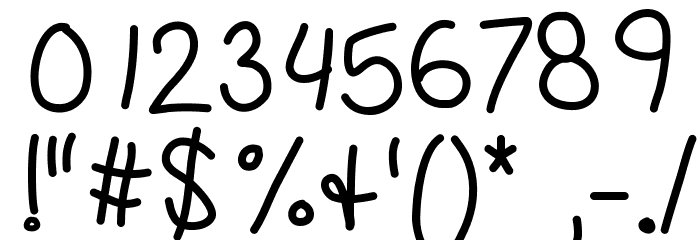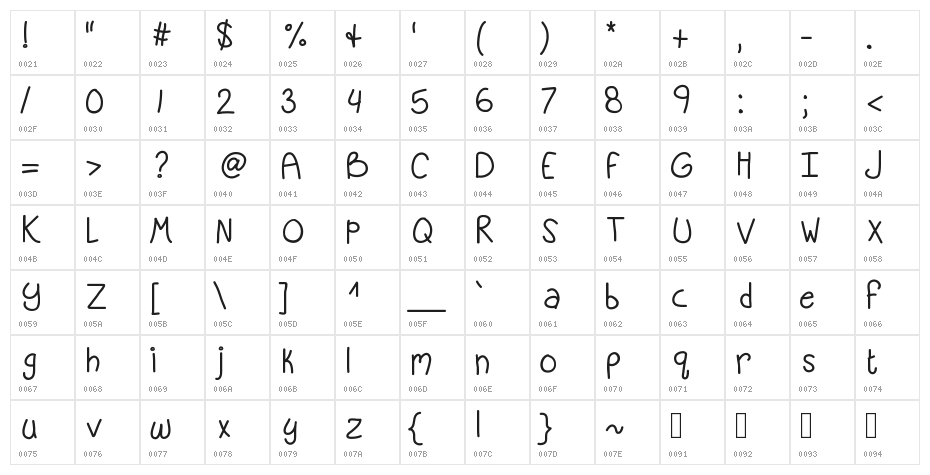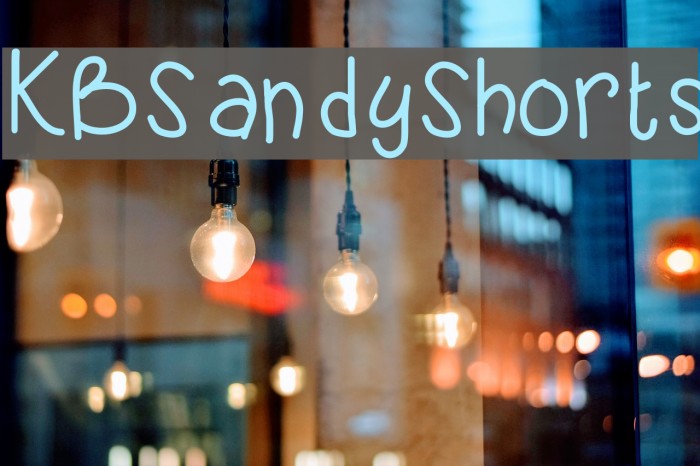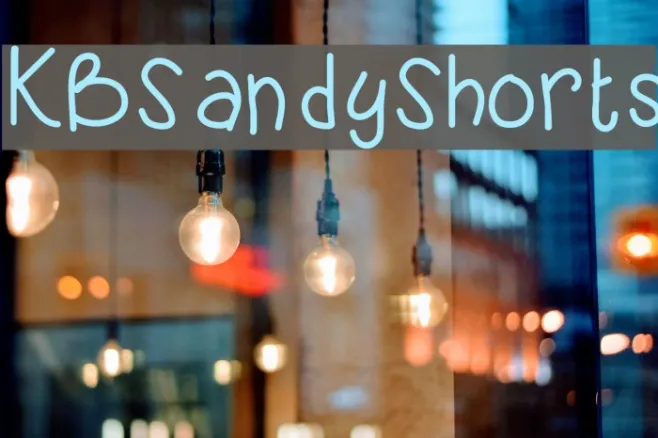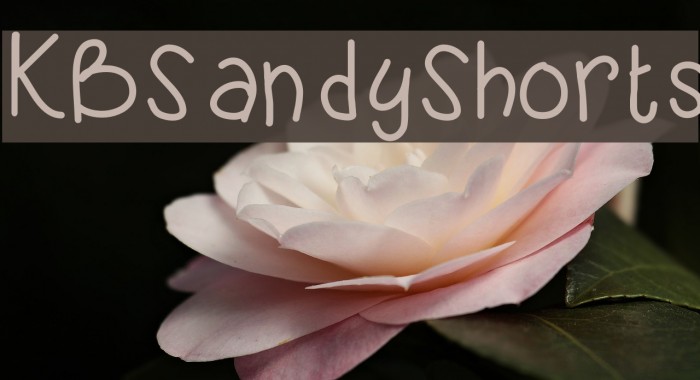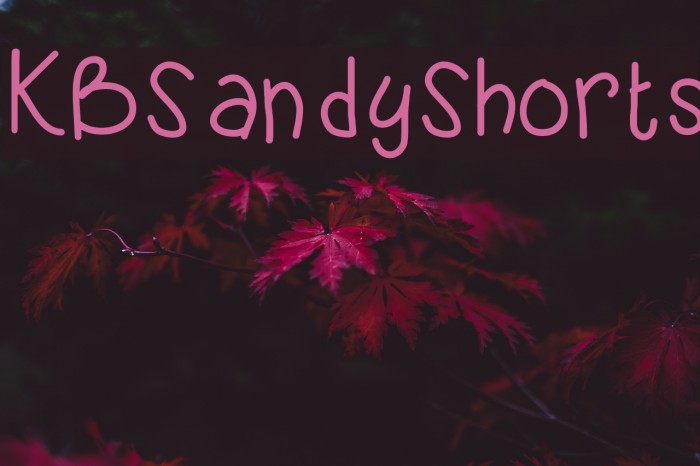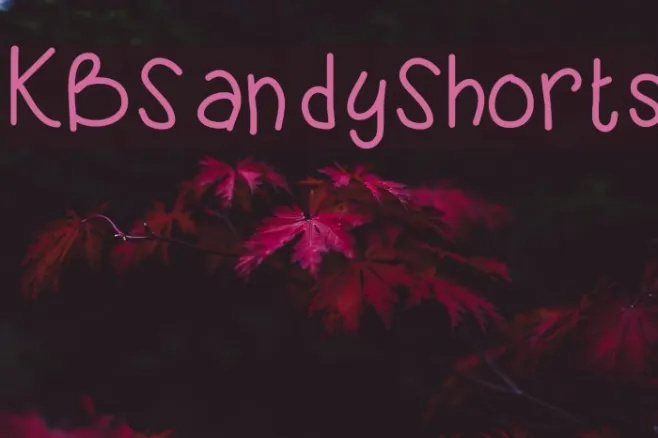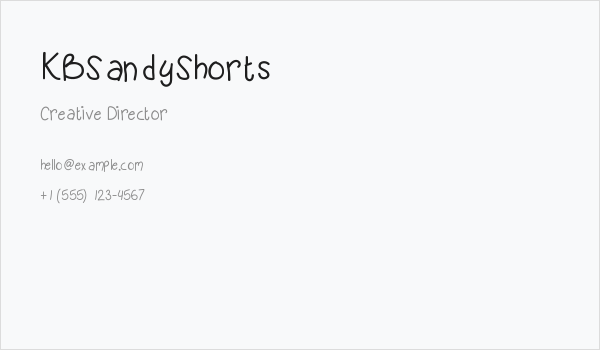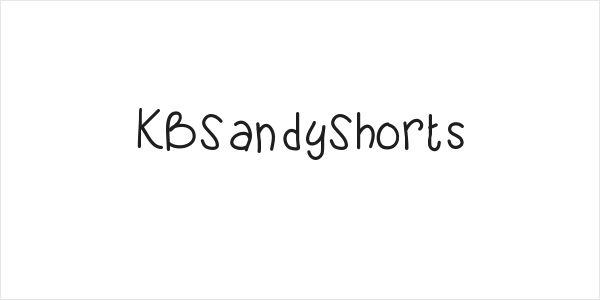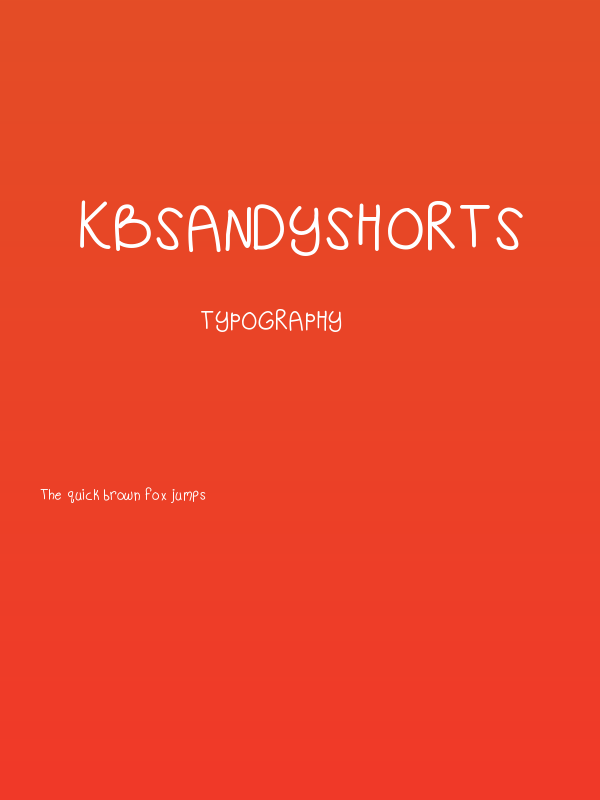
KBSandyShorts Font
KBSandyShorts Description
This font features a playful and casual handwritten style, characterized by its rounded and slightly irregular letterforms. The uppercase and lowercase letters maintain a consistent flow, giving a friendly and approachable appearance. The numbers and special characters are designed to match the overall informal aesthetic, making it suitable for projects that require a personal touch. The strokes are uniform in thickness, contributing to a cohesive look across all characters. This font is versatile and can be used in various creative contexts where a relaxed and informal tone is desired.
Character SpacingMonospaced
ContrastLow
Overall StyleCasual, Playful
Use CaseHeadlines, Informal text, Creative projects
Proposed ProjectsIdeal for children's books, greeting cards, casual invitations, and playful branding.